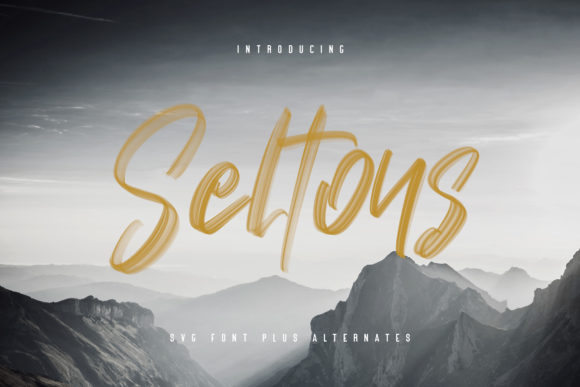
About Seltons Font
Seltons is a stylish and incredibly unique brushed script font. It looks lovely on invitations, thank you cards, quotes, greeting cards, logos, business cards and every other design which needs a handwritten touch.